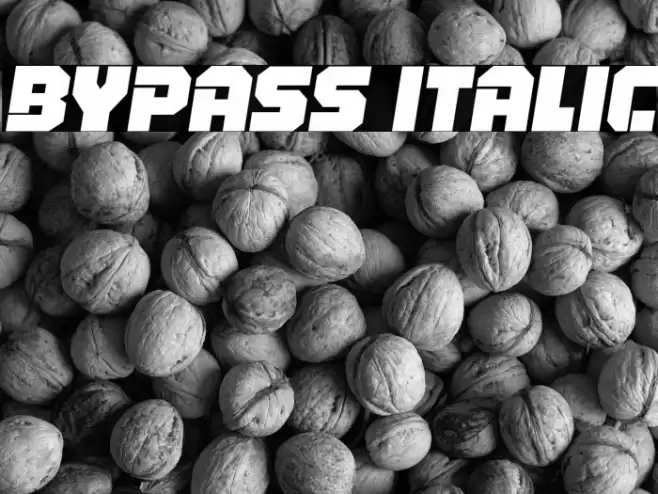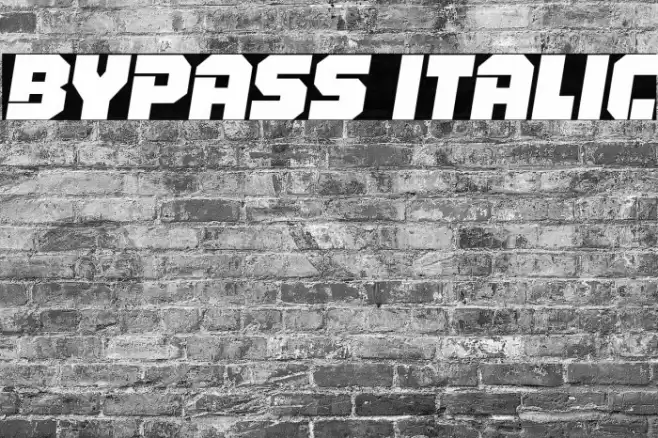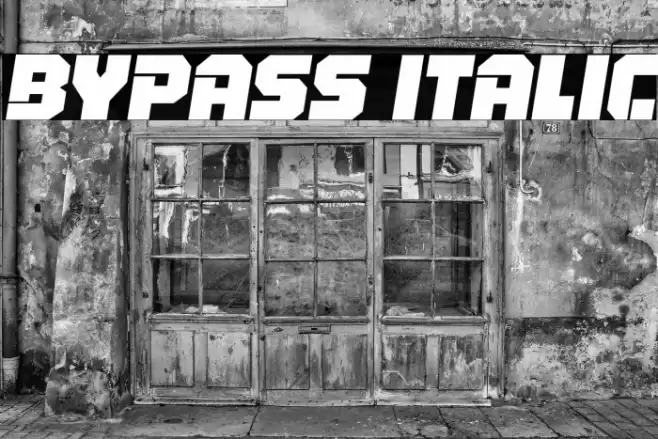
Bypass Italic Font
Bypass Italic Description
This font features a bold, angular design with a strong, dynamic presence. The characters are sharply cut with a forward slant, giving an italicized appearance that enhances its energetic and modern feel. The uppercase letters are uniform in height, while the numbers and special characters maintain the same bold and angular style. The font's geometric shapes and thick strokes make it highly legible and impactful, suitable for attention-grabbing designs.
A bold, angular, and italicized font with a modern and dynamic style from Uncategorized fonts.
- Proposed Projects: Ideal for sports branding, action movie posters, video game titles, and dynamic advertising campaigns.